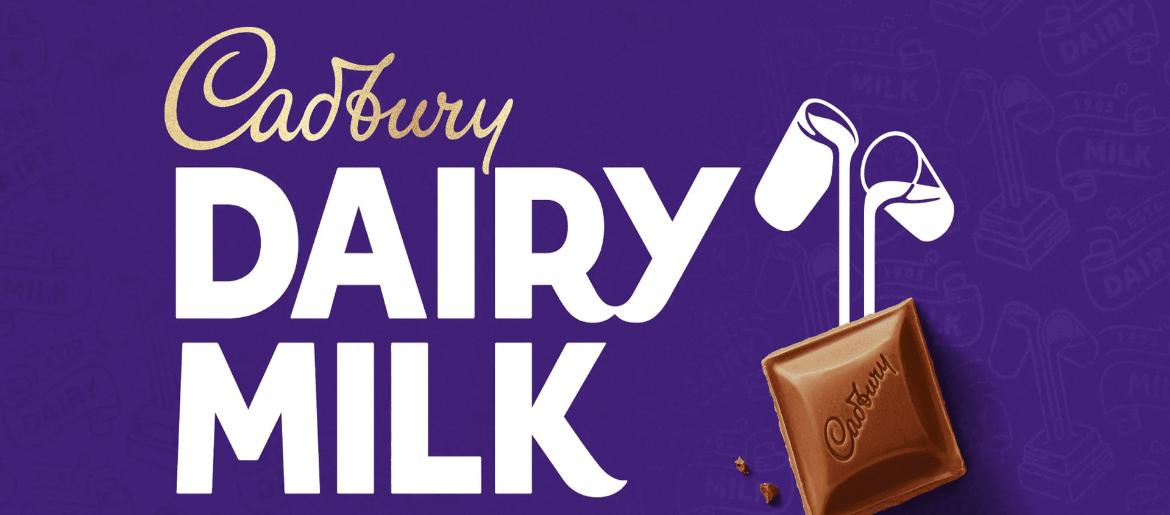
Cadbury Dairy Milk Font
According to Cadbury’s website, this logo first appeared in 1921.
The Cadbury Dairy Milk font carries the warm, nostalgic charm that has defined the brand for generations. Its smooth, flowing script instantly brings to mind the creamy sweetness and comforting indulgence that Cadbury is known for. Designed to feel both premium and inviting, the typeface adds a touch of tradition and craftsmanship to the brand’s visual identity, making it ideal for anyone looking to capture a luxurious yet approachable aesthetic.
The Cadbury Dairy Milk Font is distinguished by its elegant script style, featuring soft curves and a fluid motion that evokes richness and silky texture. These refined letterforms highlight the brand’s emphasis on premium quality, echoing the smoothness of its iconic milk chocolate. The typeface’s enduring charm has helped maintain consistent brand recognition across various product lines, seasonal releases, and global markets. Its unmistakable personality communicates indulgence, trust, and comfort—qualities that have long defined Cadbury’s commitment to creating memorable chocolate experiences.